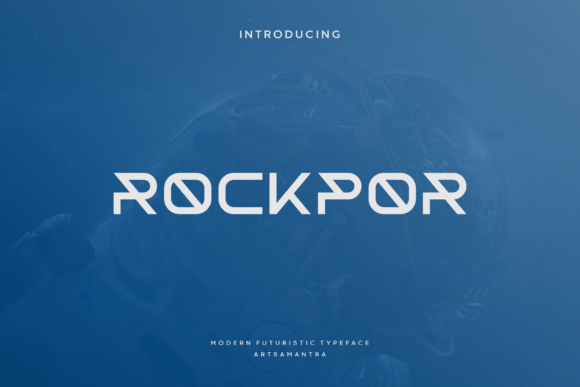
**Introducing Rockpor Font: The Epitome of Minimalist Typography**
In a world saturated with visual noise and clutter, simplicity and clarity reign supreme. Rockpor Font, a stunning sans serif masterpiece, embodies this philosophy, offering a refreshing take on modern typography. Its clean lines, sophisticated all-caps, and smooth, light execution create an aura of elegance and sophistication that's perfect for brands seeking a futuristic and forward-thinking identity.
**Unleash Your Creative Vision with Endless Possibilities**
With Rockpor Font, the possibilities are limitless. Its versatile nature allows it to seamlessly adapt to a diverse range of projects, from sleek logos and branding materials to captivating website designs and social media graphics. Whether you're a seasoned designer or just starting your creative journey, Rockpor Font is the perfect tool to elevate your work and make a lasting impression.
**Experience the Allure of Simplicity and Sophistication**
Rockpor Font's minimalist aesthetic exudes a sense of sophistication that's both timeless and contemporary. Its clean lines and unadorned letterforms create a visual harmony that draws the eye and captivates the senses. Whether you're crafting a minimalist logo, designing a sleek website, or creating eye-catching social media graphics, Rockpor Font will add a touch of elegance and refinement to your designs.
**Make a Statement with Bold, Confident Typography**
In a world where mediocrity is commonplace, Rockpor Font stands out as a beacon of boldness and confidence. Its all-caps design commands attention and exudes a sense of authority and power. Whether you're creating branding materials for a tech startup, designing a poster for a cultural event, or simply want to add some personality to your personal projects, Rockpor Font will make your words resonate with impact and leave a lasting impression.
**Embrace the Future with a Font That's Ahead of Its Time**
Rockpor Font is more than just a font; it's a portal to the future of typography. Its sleek, futuristic aesthetic perfectly captures the spirit of innovation and progress. Whether you're designing a website for a cutting-edge tech company, creating marketing materials for a revolutionary product, or simply want to add a touch of futurism to your creative projects, Rockpor Font will transport your designs to the forefront of contemporary design.